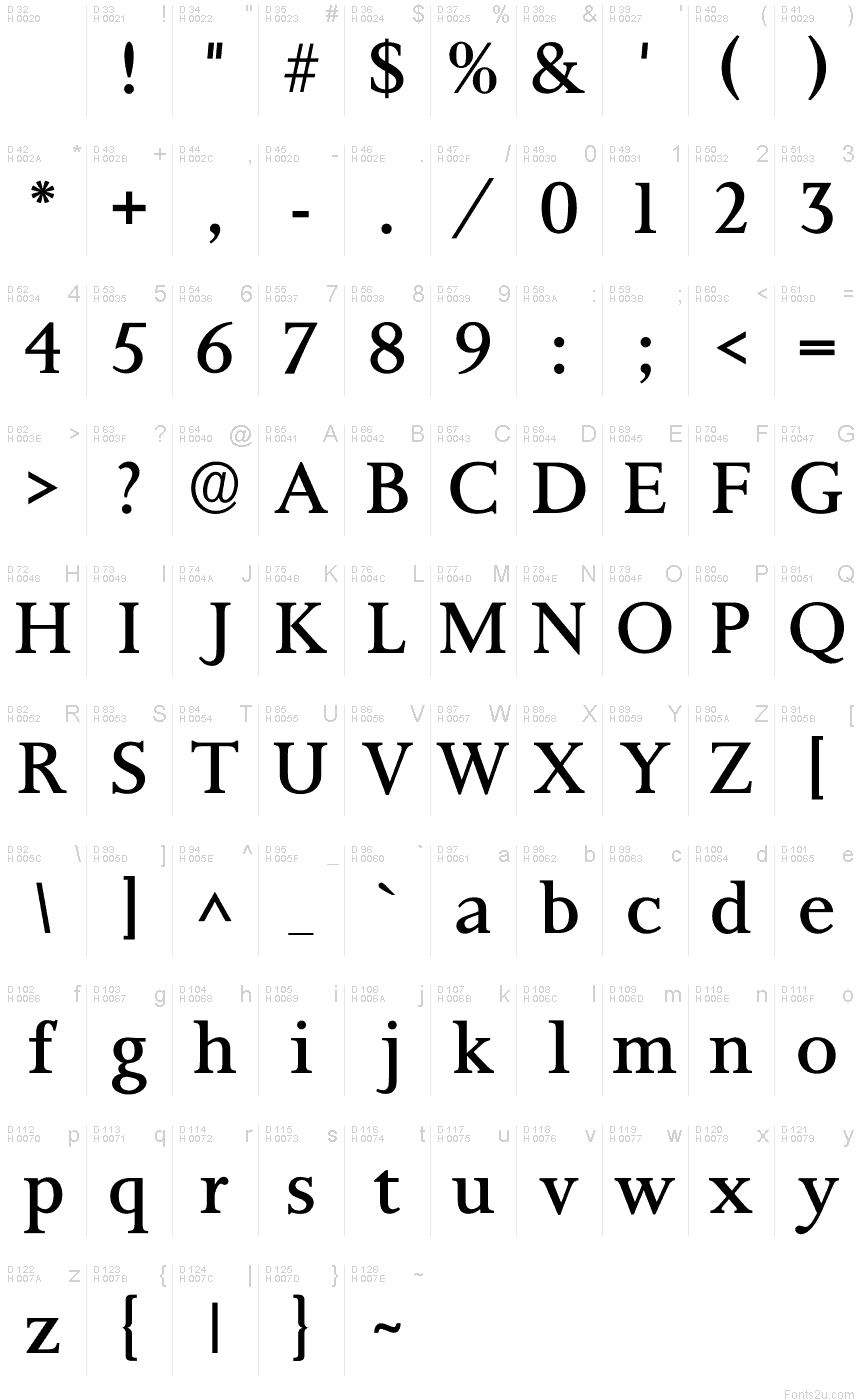
Palermo
Palermo by B & P Graphics, Ltd. is a free serif font with a tall, mannered rhythm that mixes broad upright strokes with rounded bowls and clipped finishing details. That contrast gives the lettering a formal, slightly literary presence, while the soft curves keep it from feeling stiff or purely classical.
Book jackets, restaurant menus, gallery posters, invitation headings, and upscale packaging all make sense here. Palermo has enough ceremony for names and short titles, especially where those high-reaching verticals and compact curved forms can give a line a composed, old-world flavor without turning ornamental.